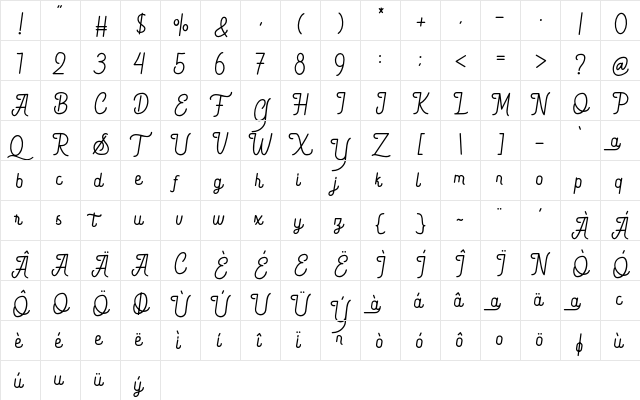
Quefira Regular
| Foundry | Chandra Hamdani ~ Vultype Co |
| Designer | Chandra Hamdani ~ Vultype Co |
Design Context for Quefira Typeface
Quefira is a composed and adaptable typeface that performs quietly and consistently across a wide range of design contexts.